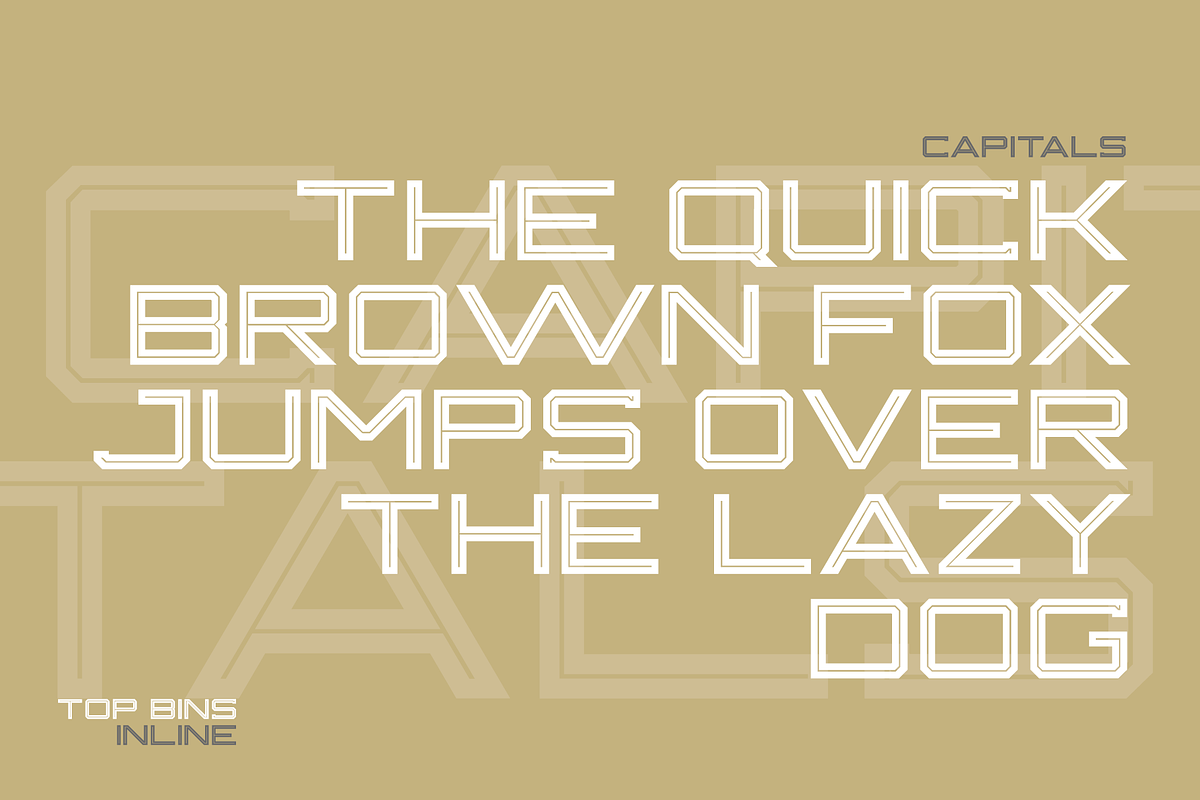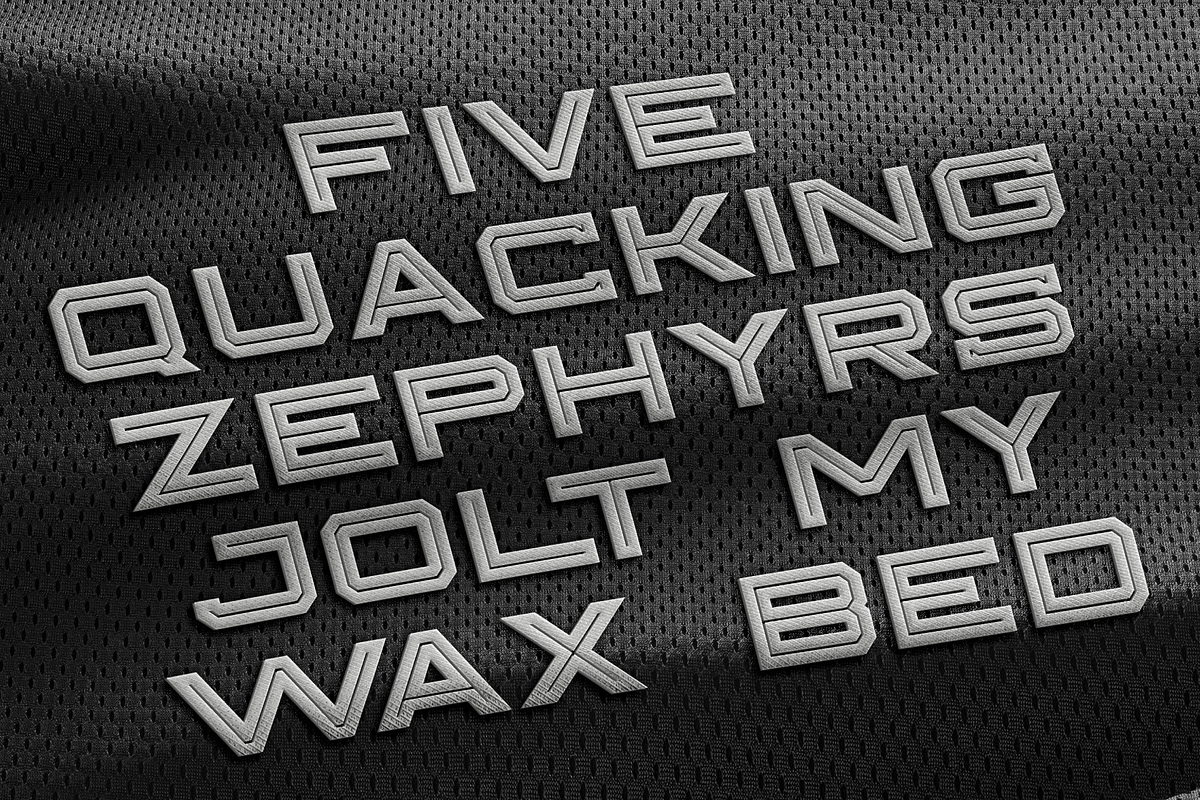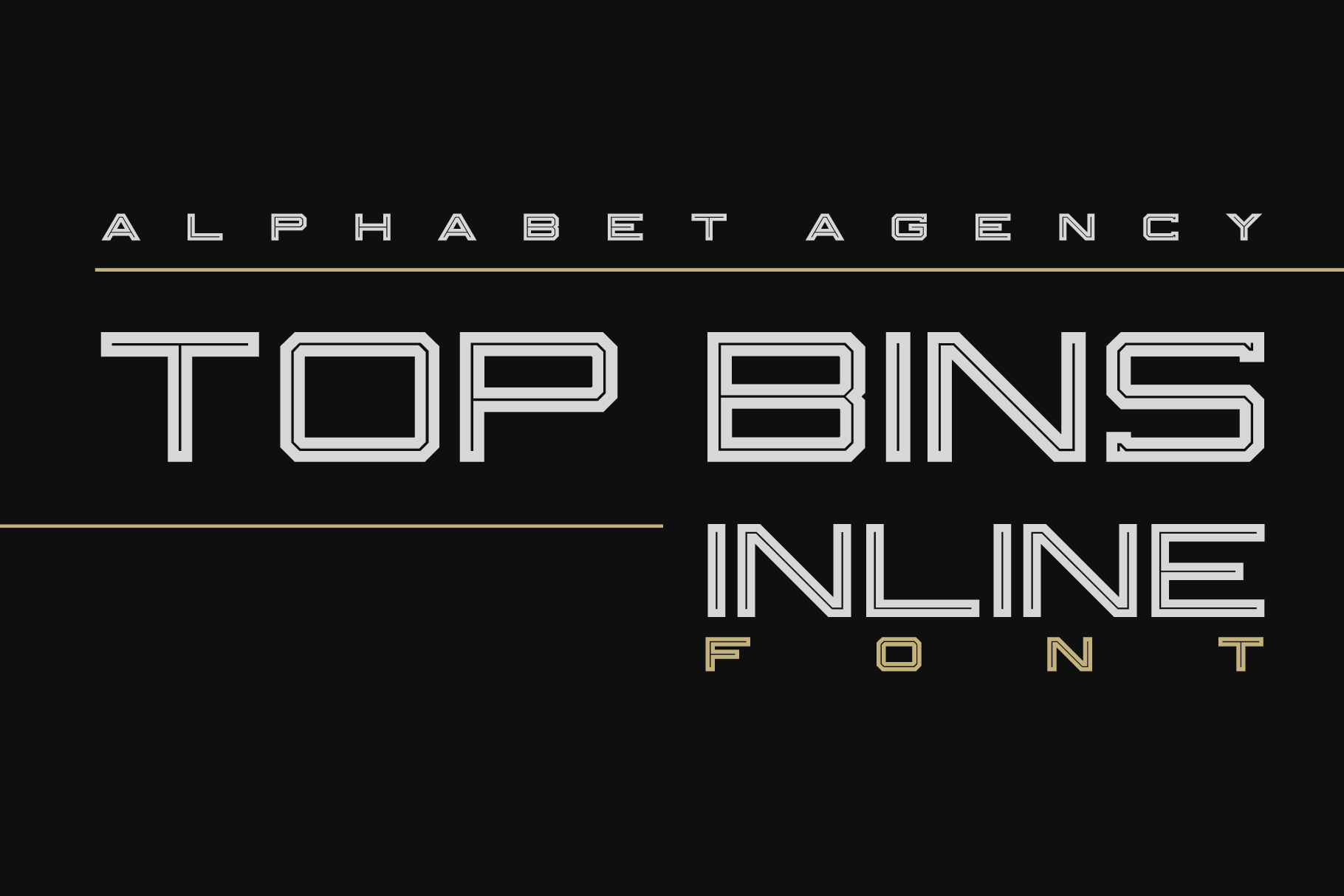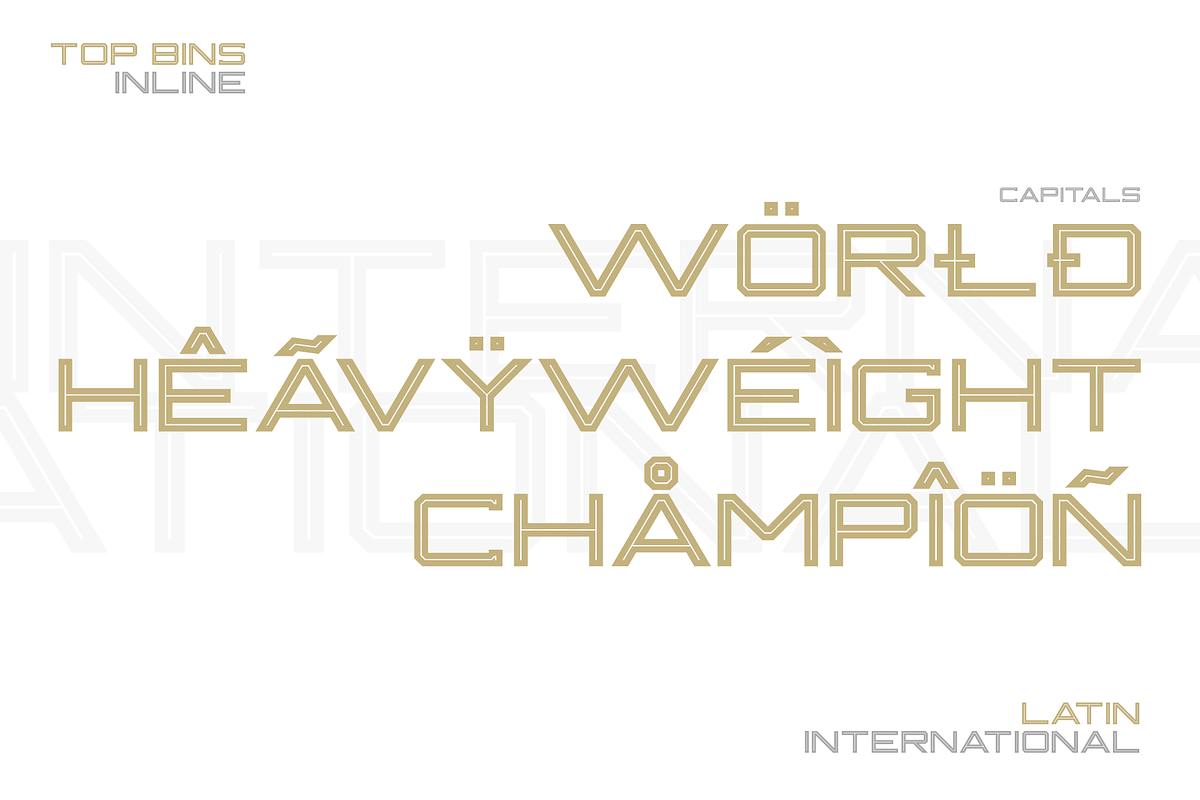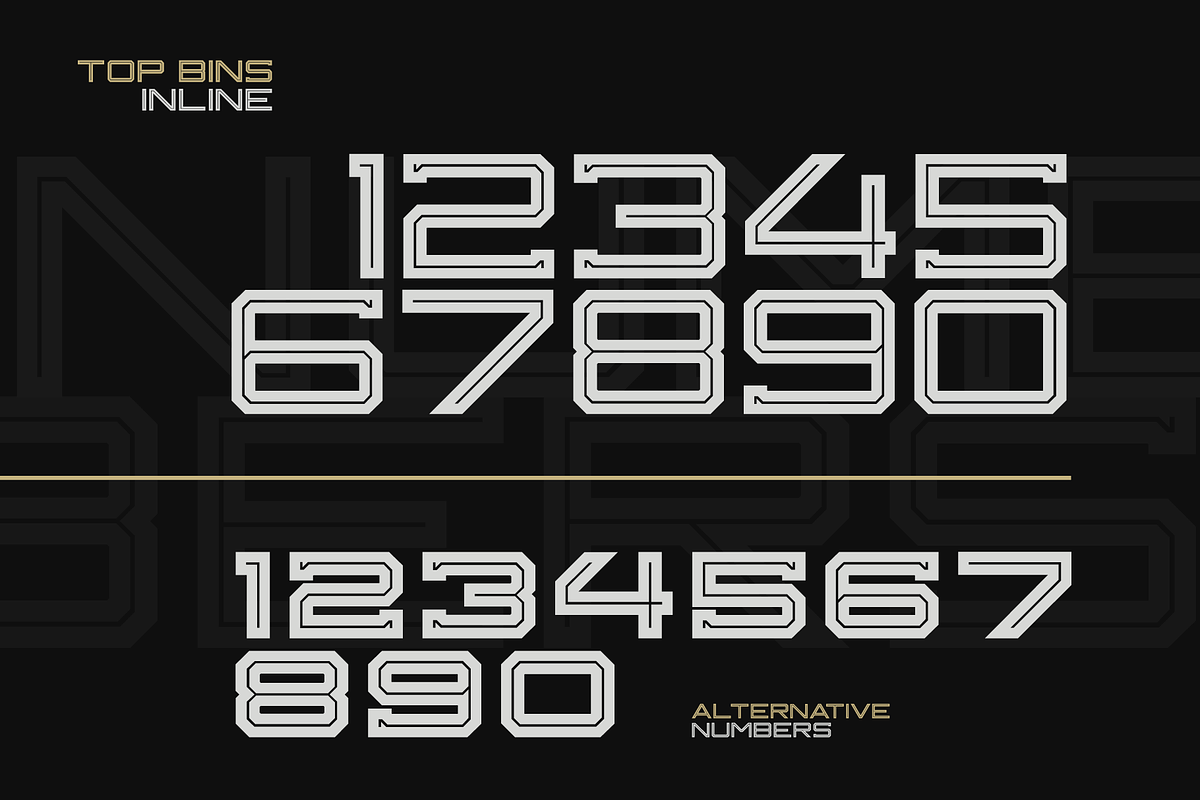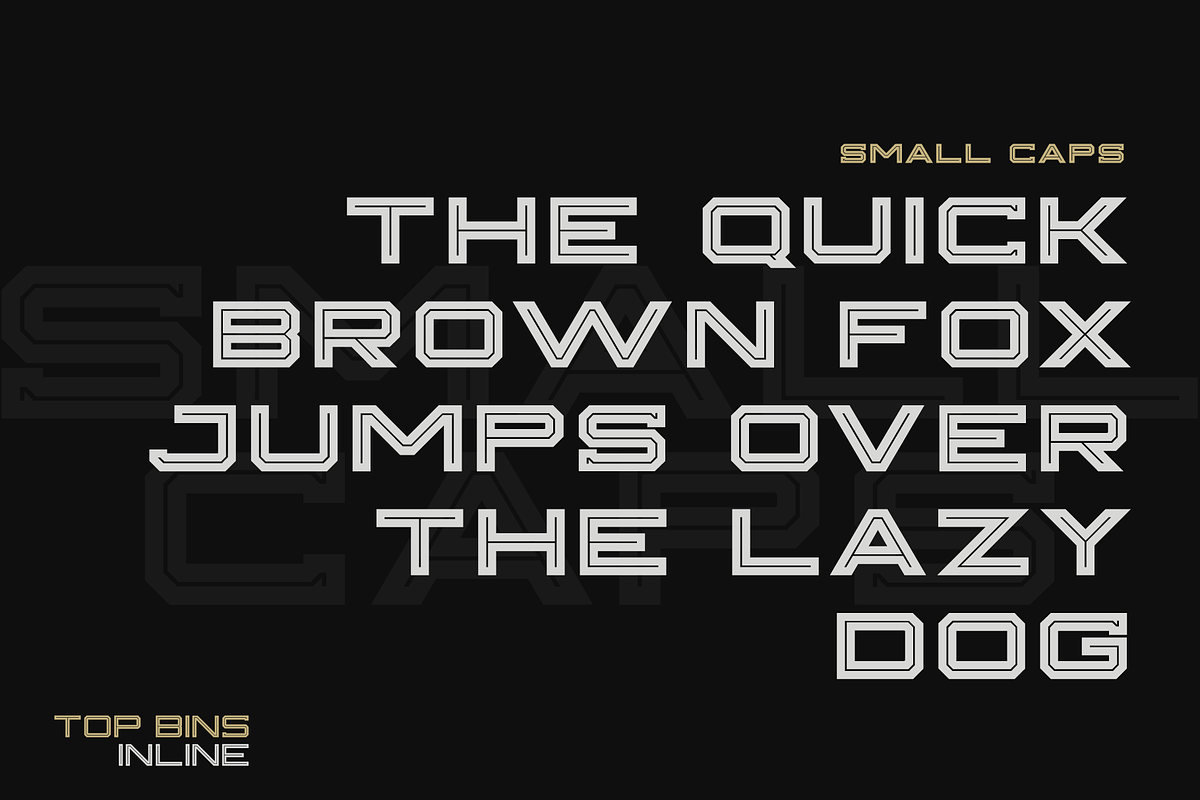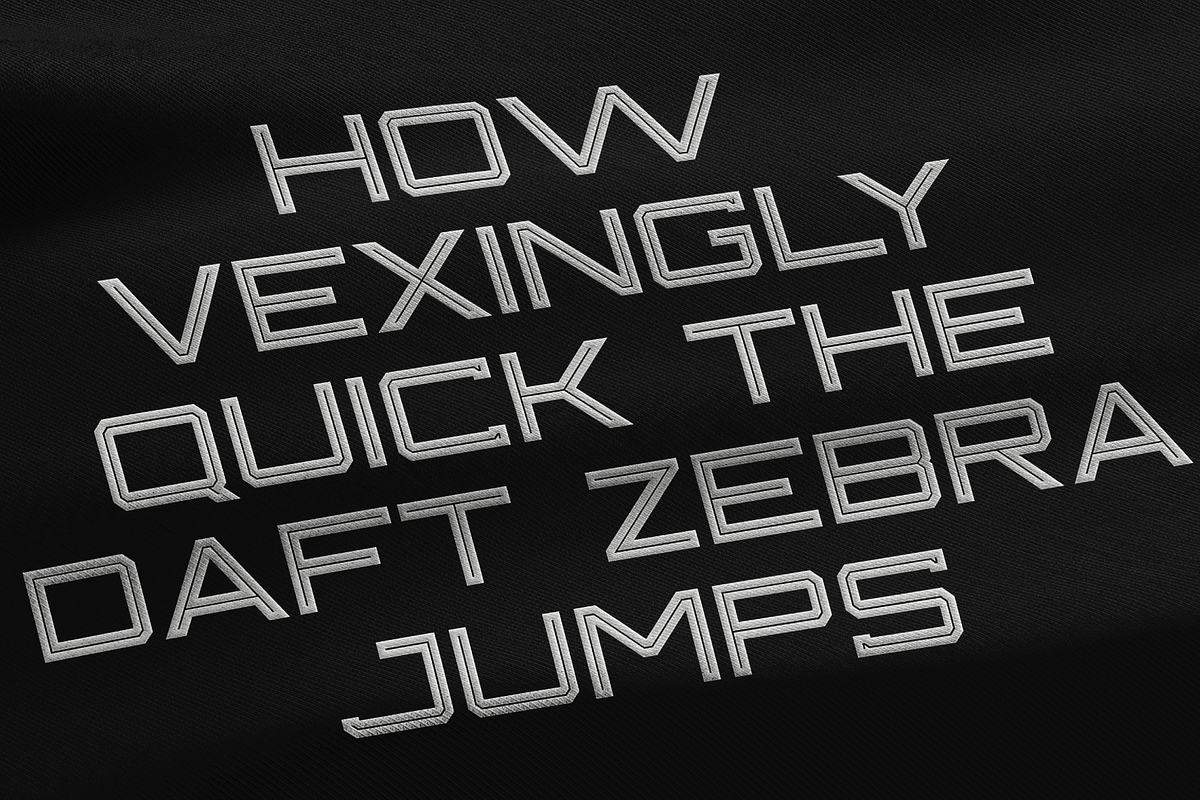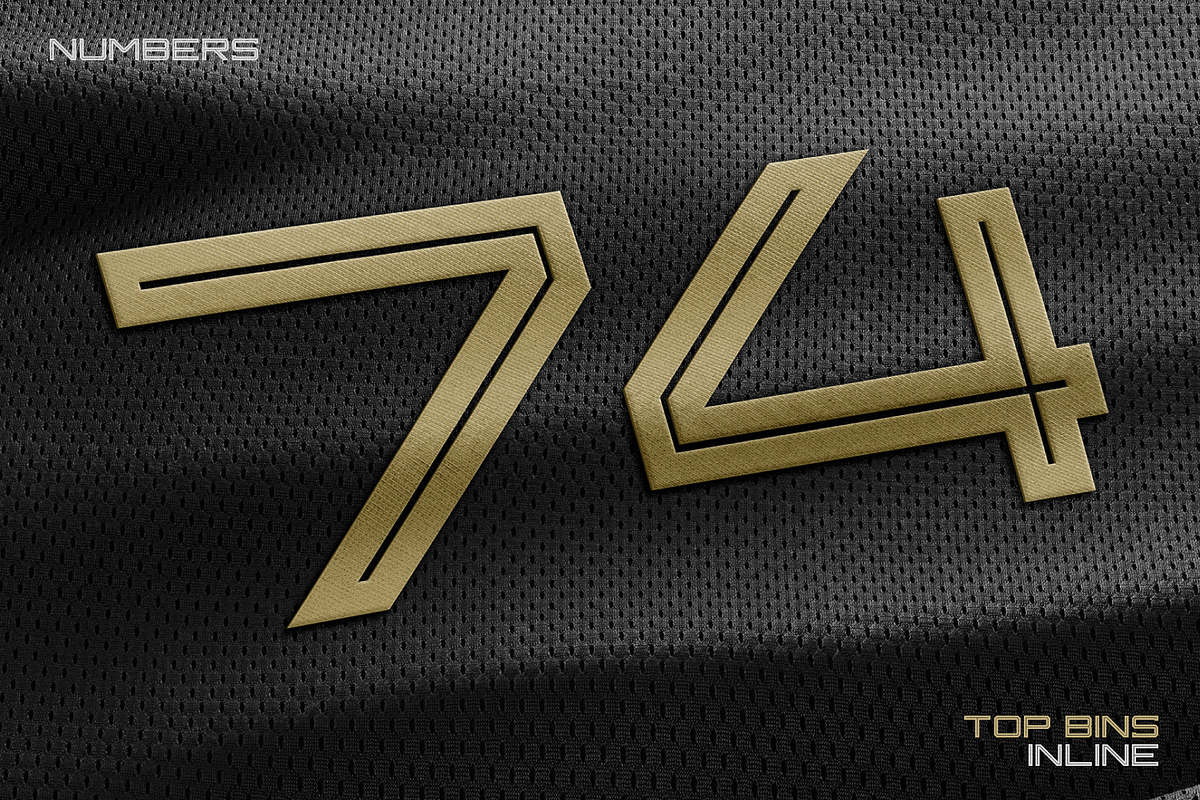
TOP BINS INLINE DISPLAY FONT
Alphabet Agency presents Top Bins Inline display font. In our continued effort to supply top quality looking fonts we developed this luxury inline sans serif font.
The inline display font contains capital letters, small caps, numbers punctuation and Latin international characters.